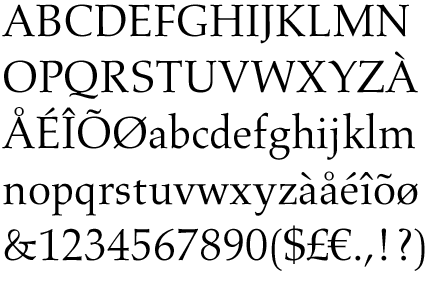
Aldus
Designed for Stempel and originally intended as the text weight for the Palatino family.
Designer: Hermann Zapf
Year: 1954
Publishers: Adobe and Linotype